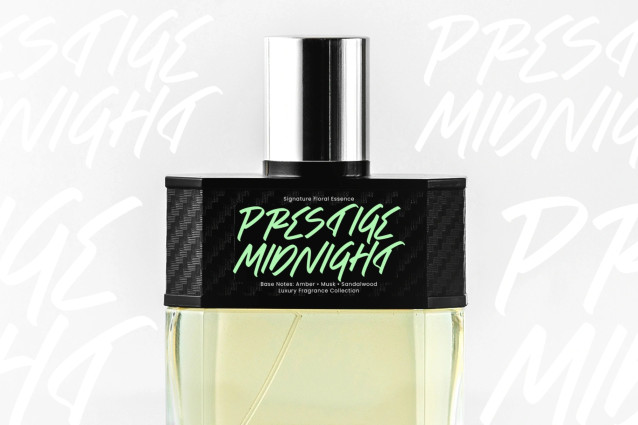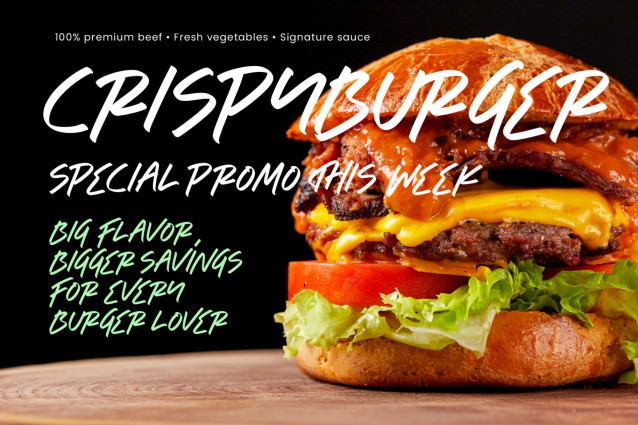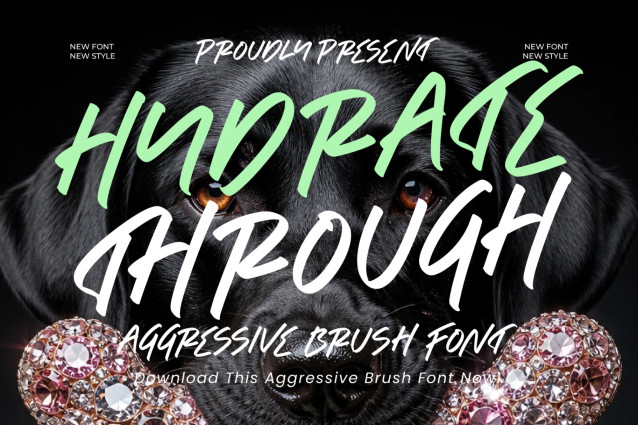
Hydrate Through Font
Hydrate Through Font is a bold and aggressive brush font created to deliver maximum impact and unstoppable energy. Featuring powerful brush strokes, dynamic movement, and expressive letterforms, this typeface is designed for projects that demand attention and confidence. Inspired by fast hand-painted lettering and modern urban aesthetics, Hydrate Through combines raw brush texture with strong character construction, creating a bold visual presence that stands out across both print and digital media. Its energetic strokes and natural brush movement bring an authentic handcrafted feel while maintaining excellent readability. Whether used for branding, sports graphics, merchandise, advertising, or social media content, Hydrate Through instantly adds attitude, strength, and personality to any design. Built for designers who want typography that feels fearless and expressive, this font delivers a striking balance between creative freedom and professional usability.